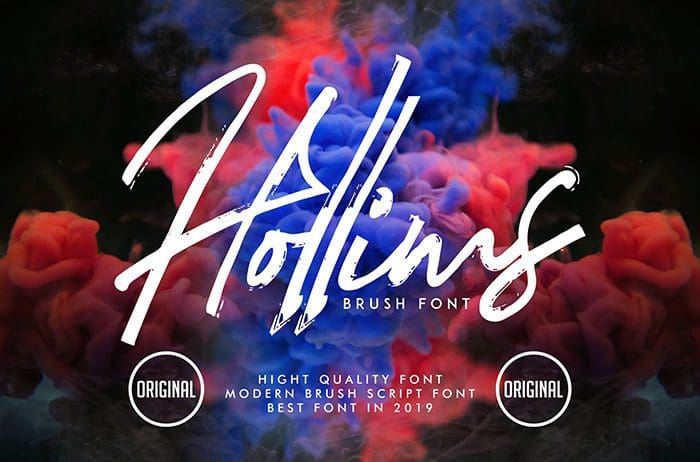
Free Hollims Brush Font
Hollims Brush Font
Free Hollims is a beautiful brush font with a calligraphy style. It will turn any design project into an eye-catcher! Thanks to Vunira Studio for sharing this font! Take a look at this portfolio for more of his stunning fonts.